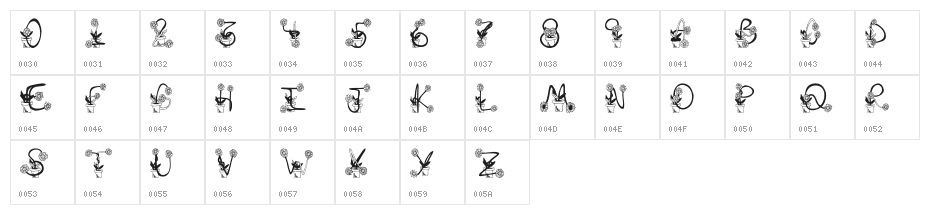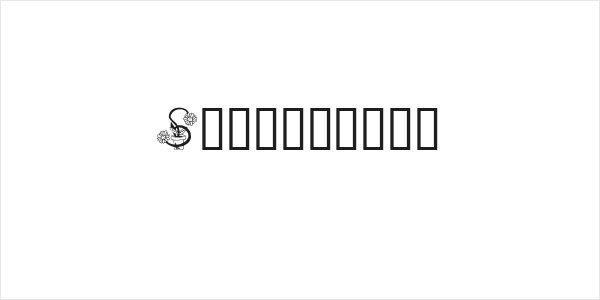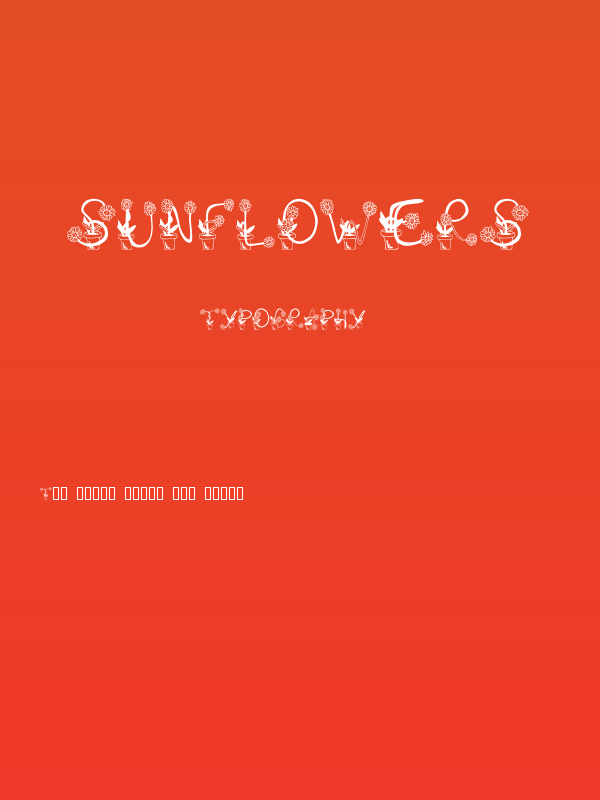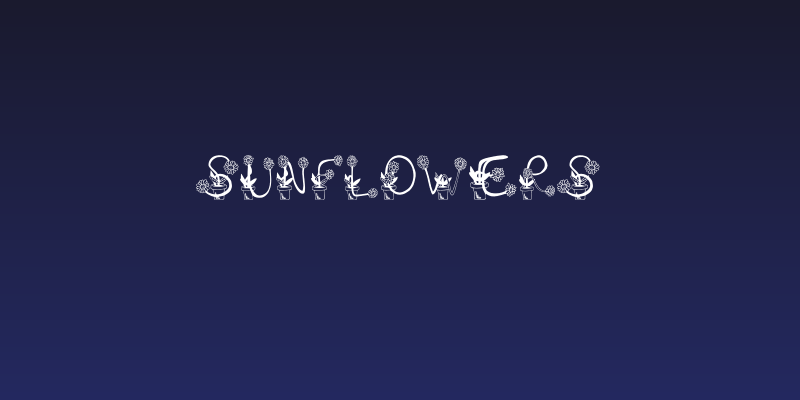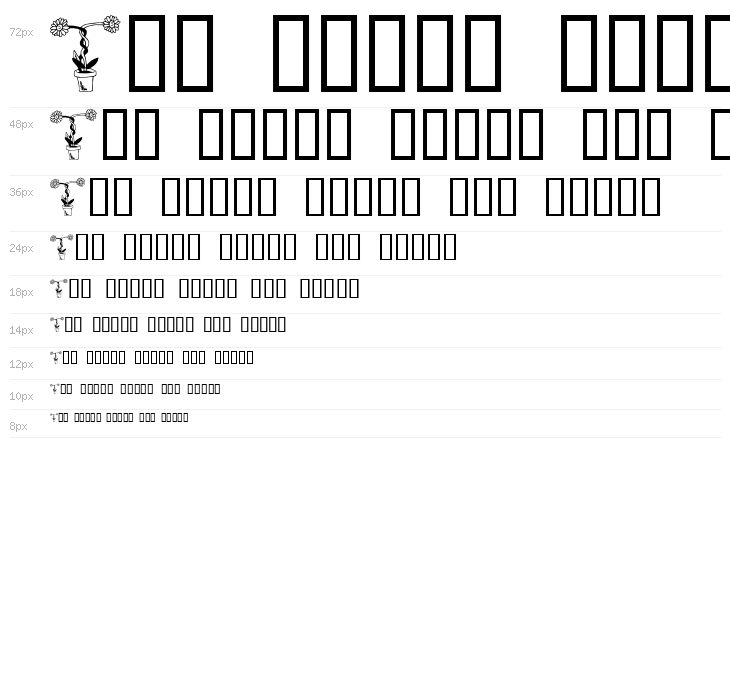
Sunflowers Font
Sunflowers Description
This decorative font features a unique and playful design where each character is intertwined with sunflower motifs. The uppercase letters are adorned with sunflowers in various positions, creating a whimsical and nature-inspired look. The numbers also incorporate these floral elements, adding a touch of elegance and creativity. The font lacks lowercase letters and special characters, focusing on a bold and artistic presentation. The overall style is highly decorative, making it suitable for projects that require a touch of nature and creativity.
Proposed ProjectsIdeal for garden-themed invitations, eco-friendly product branding, or children's book covers.